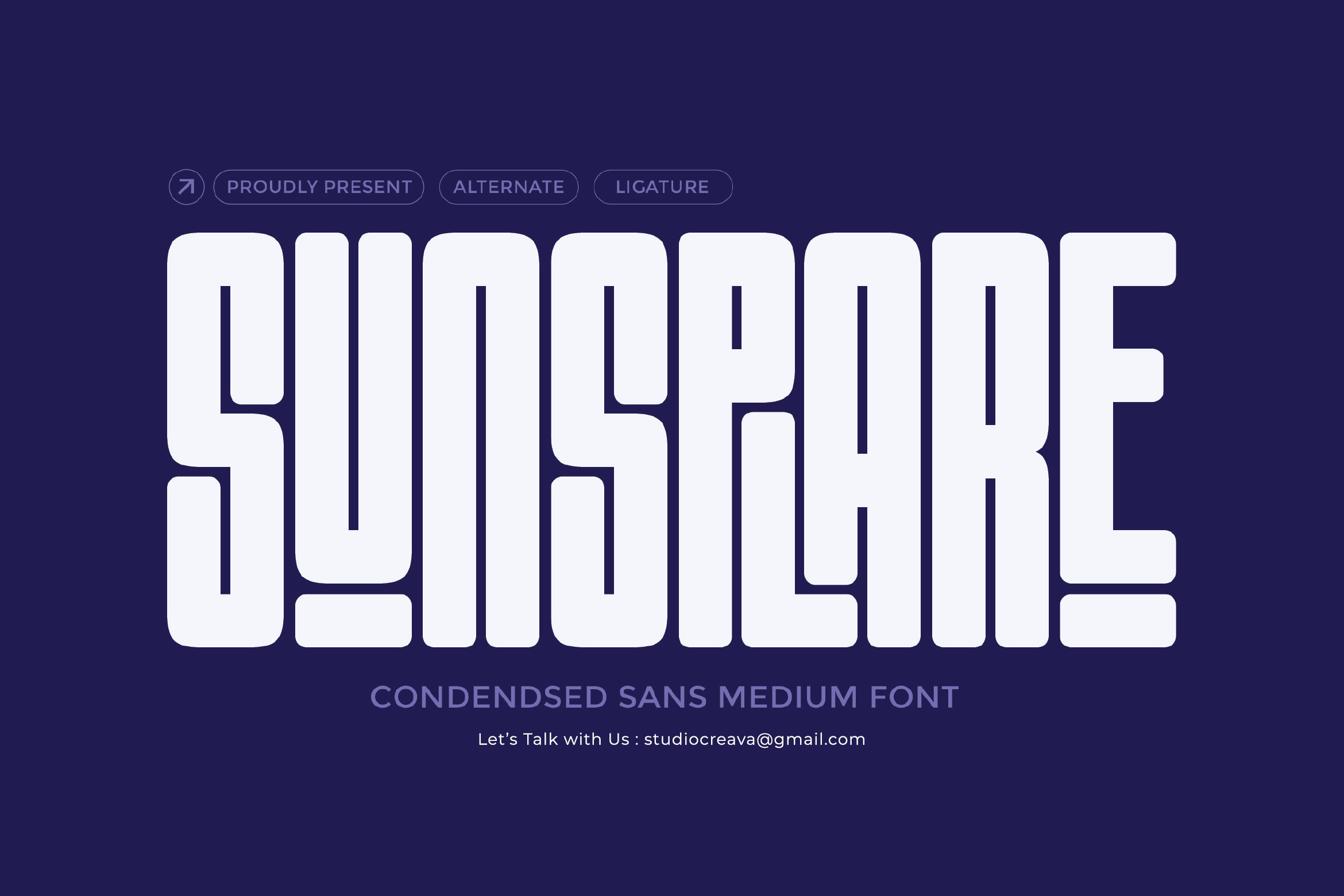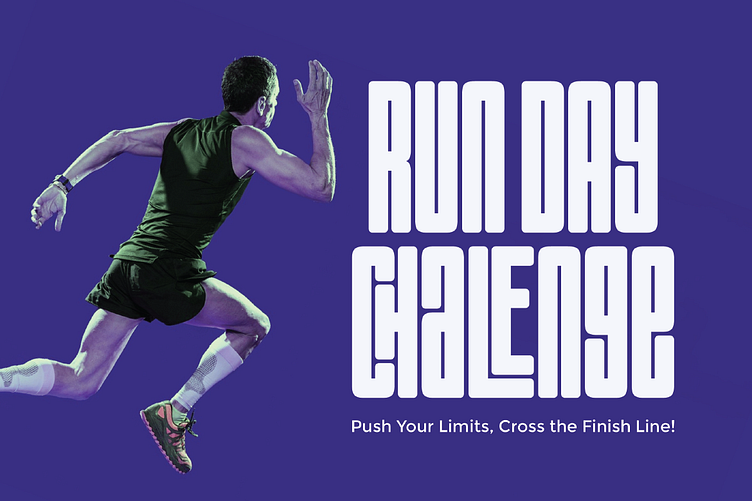
Sunsplare Condensed Font
Sunsplare Condensed Sans Medium Font
is a refined trio of fonts crafted to bring effortless elegance to any design. This thoughtfully curated colla clean all-caps sans Let the sans keep things sleek and readable in body text. featuring a rich array of glyphs and ligatures that lend handwritten warmth to signatures, quotes, packaging, and beyond.